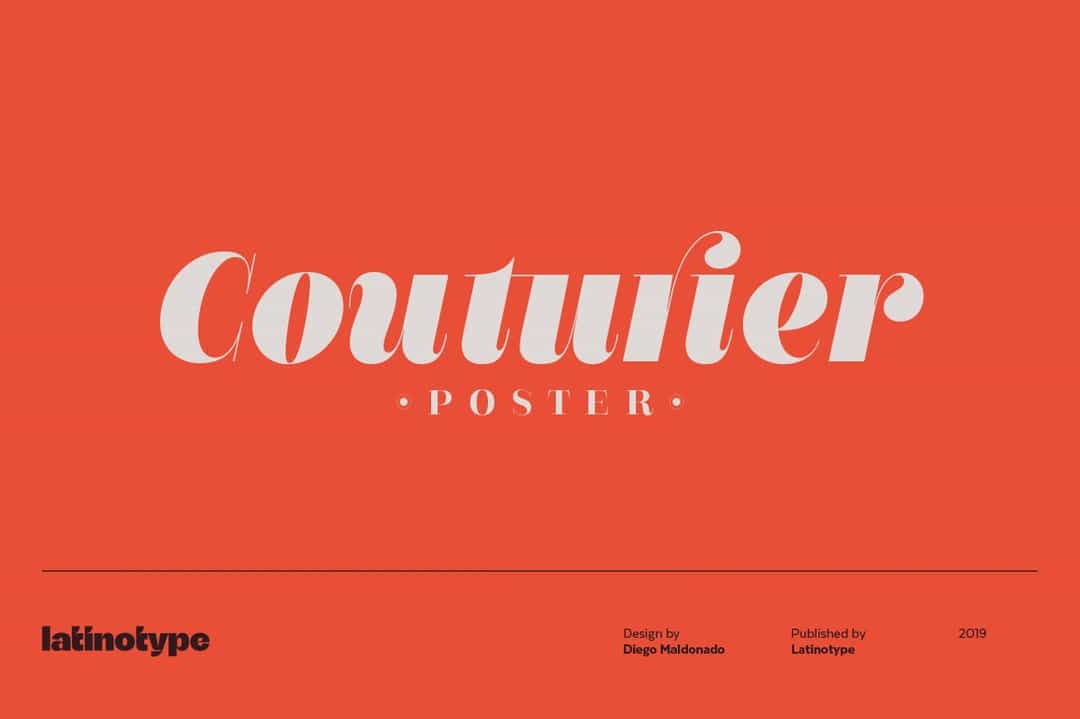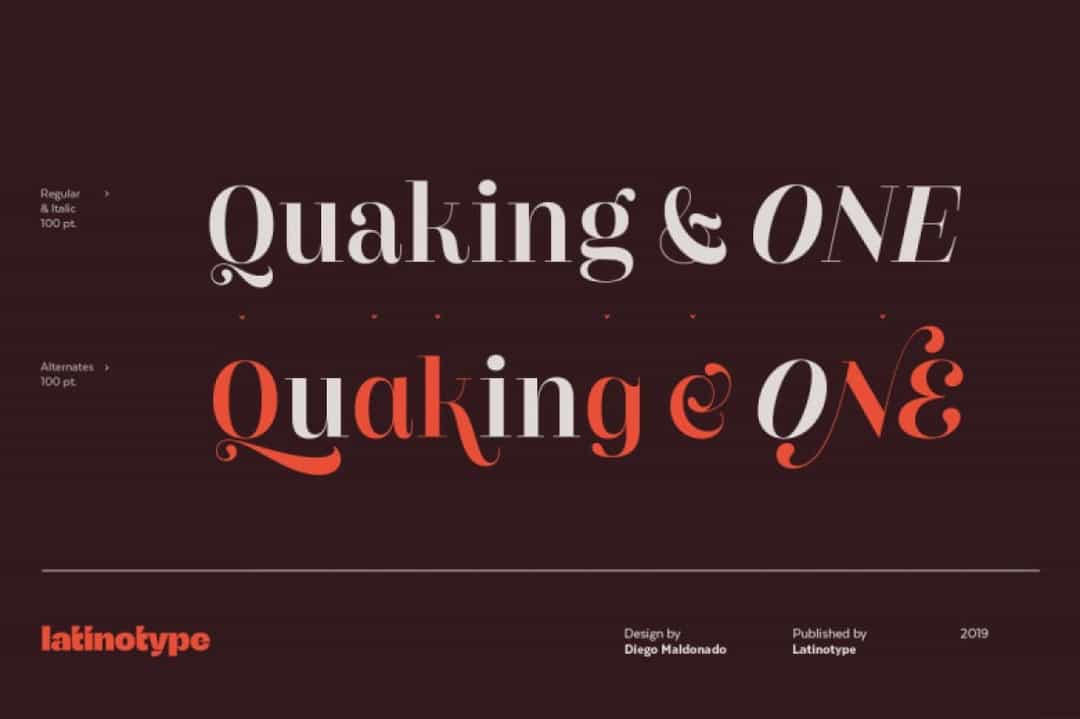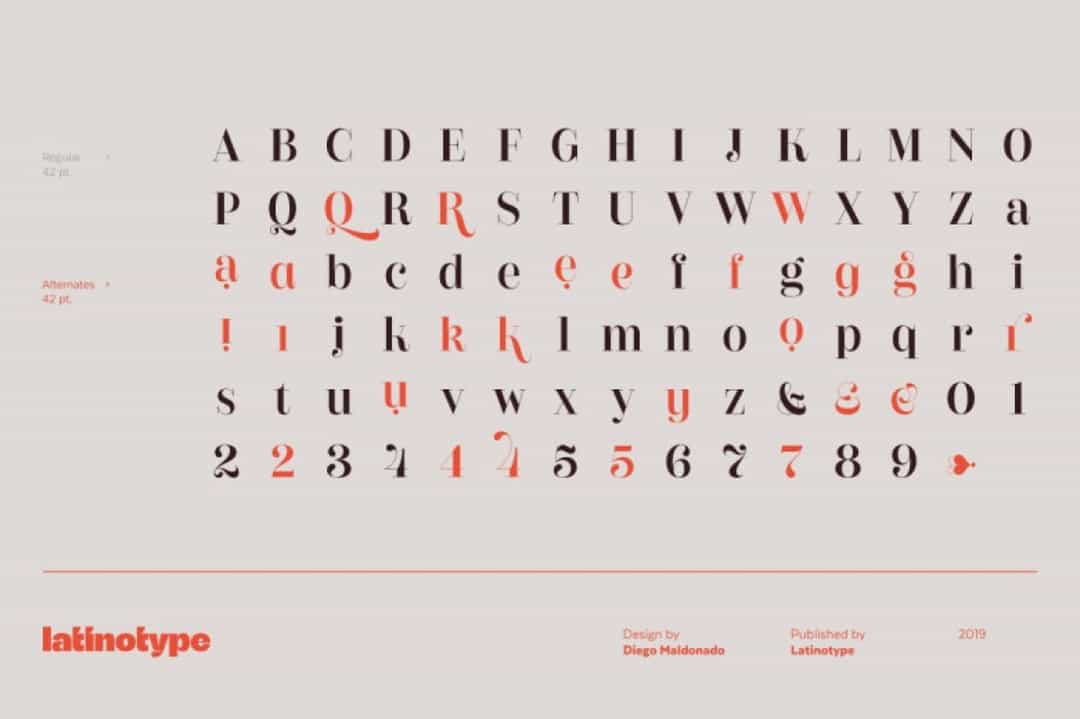
Couturier Poster soul exudes elegance. Inspired by 18th century Didone typefaces but modern in spirit, its design lends itself to large sizes perfectly suited for printing posters or large advertisements. Available now!